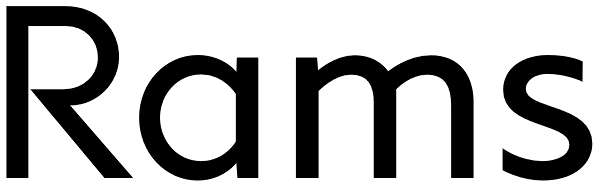
Rams
RAMS is a Sans Serif type family of four weights with matching italics. The typeface’s design was influenced by the geometric style of Sans Serif faces of the 30s. The letter shapes – based on geometric forms – have been optically corrected for...
Rams